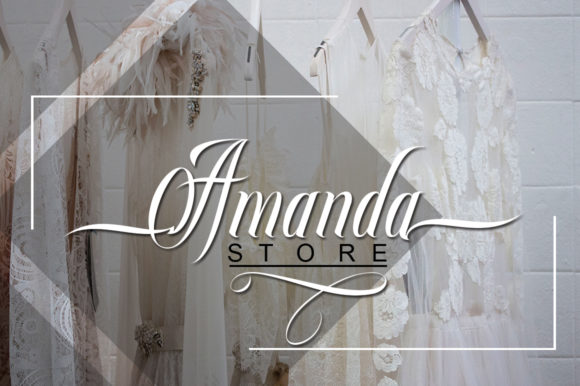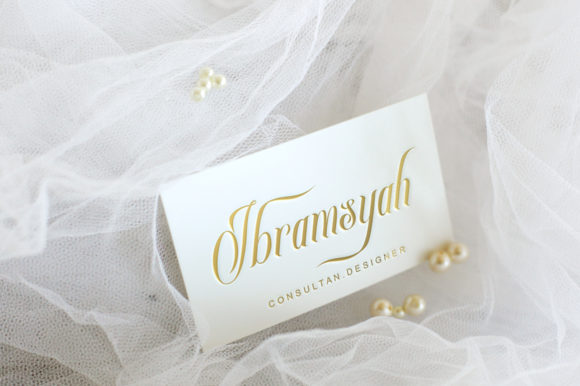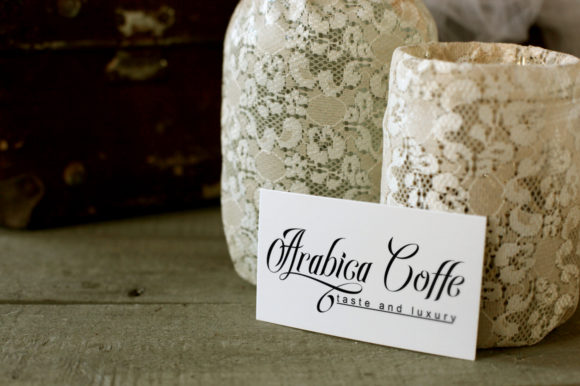
Introduction to Rocklands Original Font
Rocklands Original is an elegant handwritten font ready to be used in your future projects.
Use it in a wide variety of applications from logos, book covers, product presentations to anything else you can think of .
Key Features of Rocklands Original Font